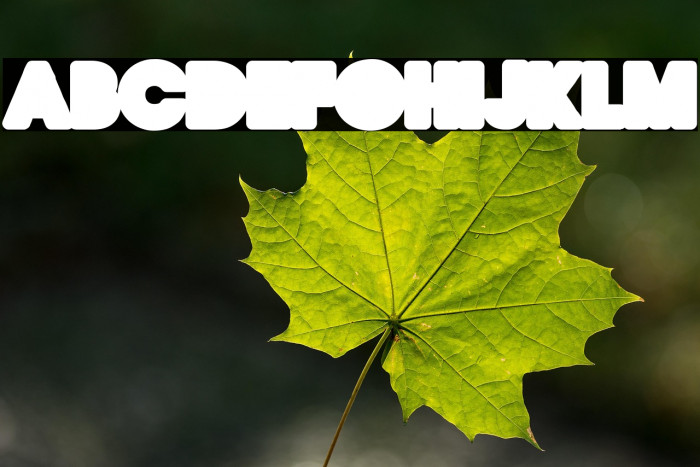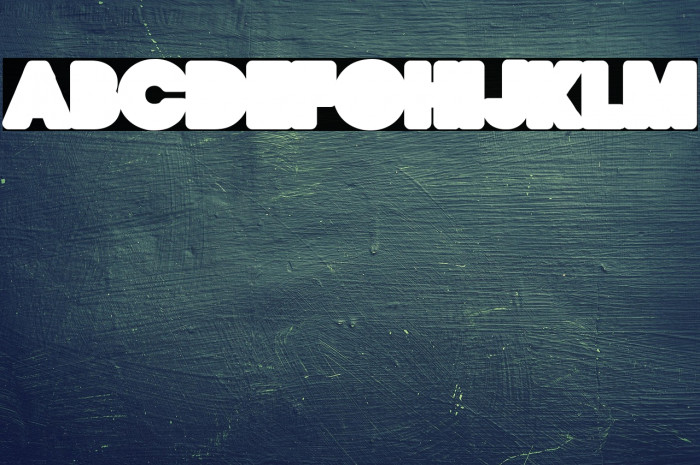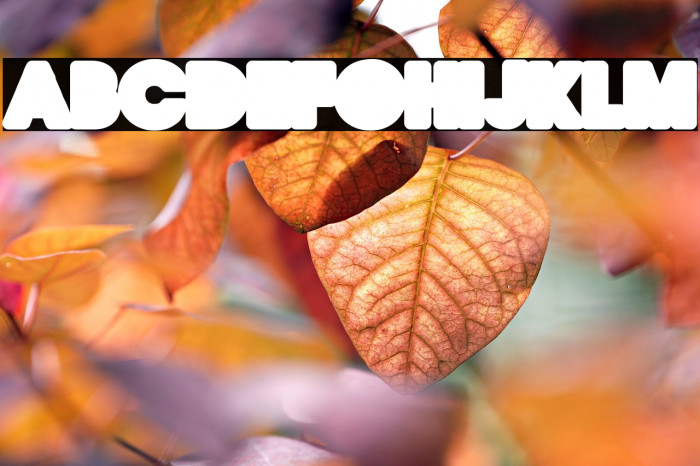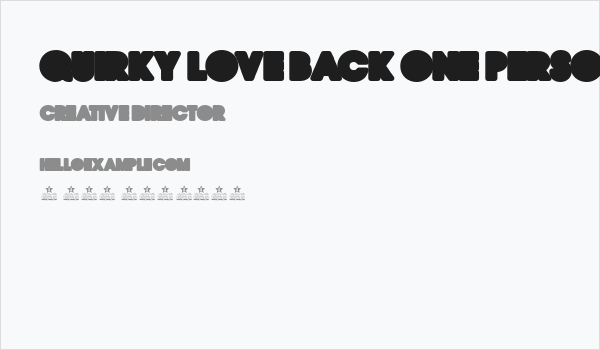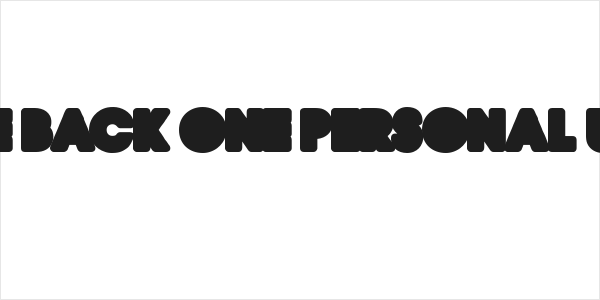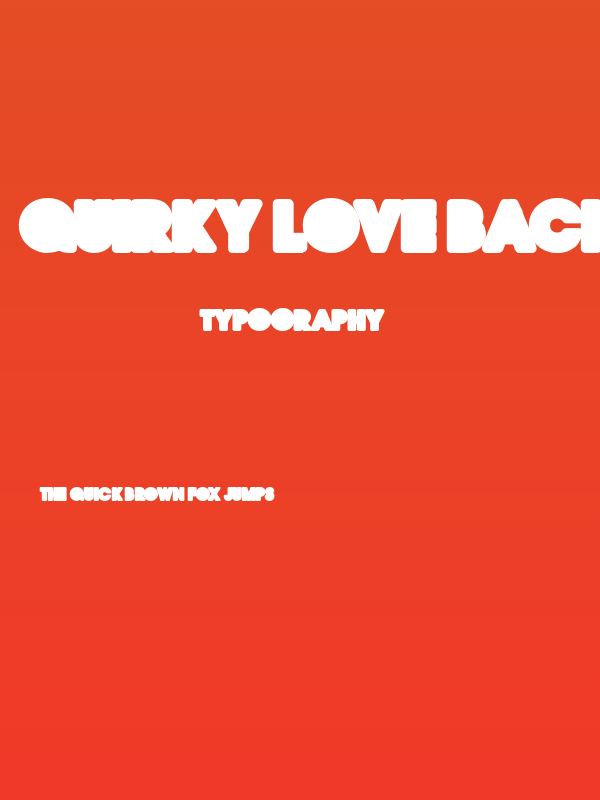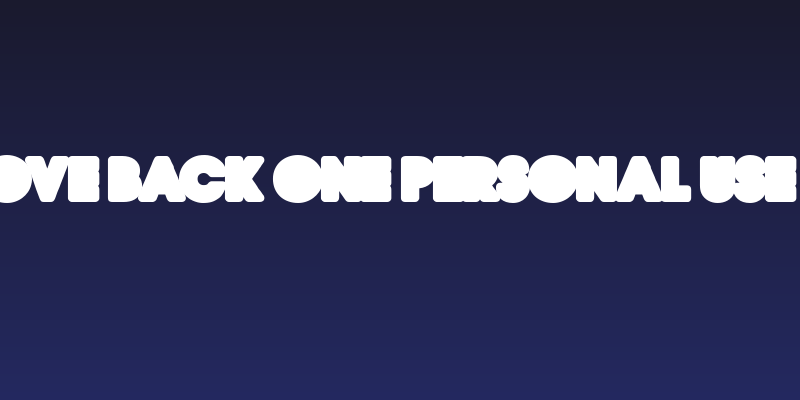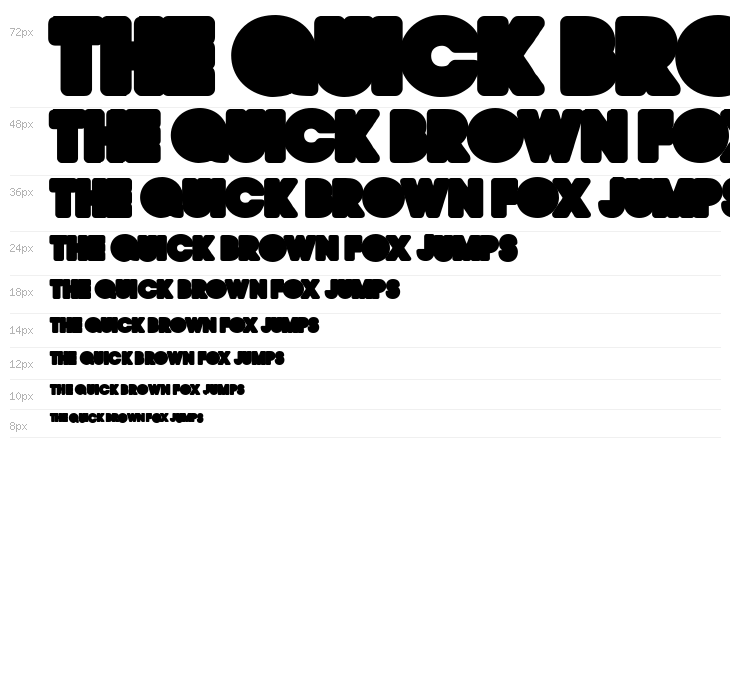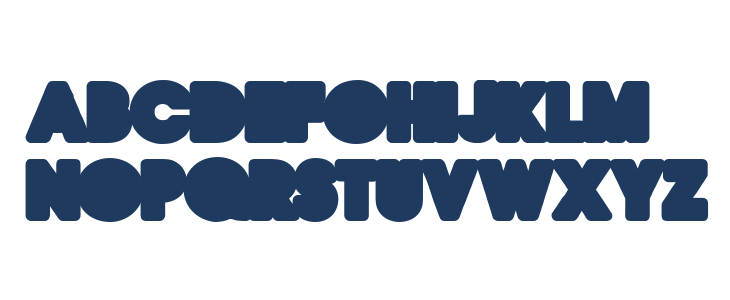
QUIRKY LOVE BACK ONE PERSONAL USE Regular Font
QUIRKY LOVE BACK ONE PERSONAL USE Regular Description
This font features bold, rounded characters with a playful and quirky style. The letters are heavily weighted, giving them a strong presence, while the rounded edges add a friendly and approachable feel. The uniform thickness of the strokes contributes to a cohesive look, making it ideal for eye-catching designs. The characters are tightly spaced, enhancing the compact and bold appearance. This font is particularly suitable for projects that require a fun and engaging aesthetic, such as children's books, playful branding, or creative posters.
| Overall Style | Playful, Quirky |
| Proposed Projects | Children's books, playful branding, creative posters, party invitations. |